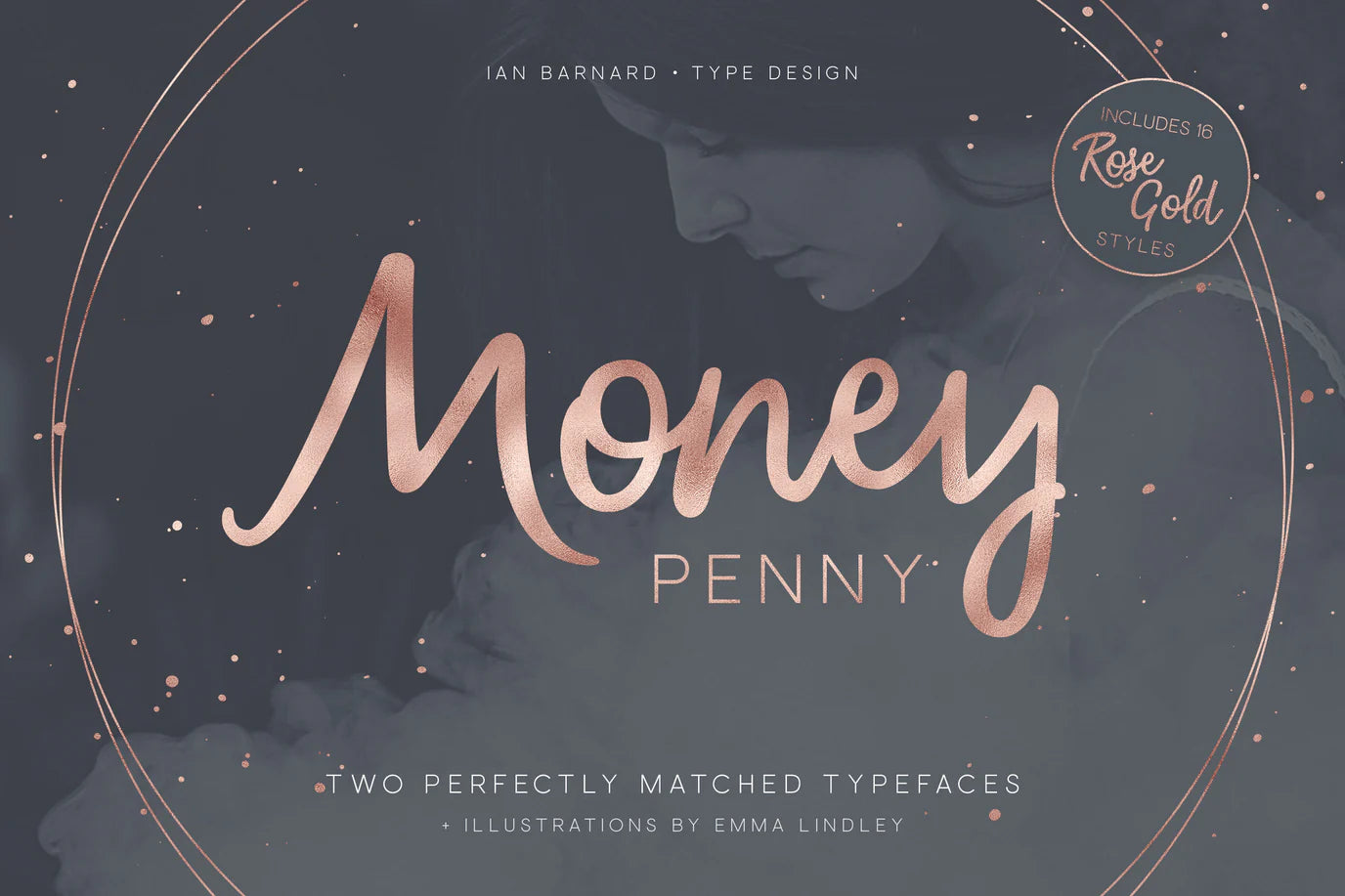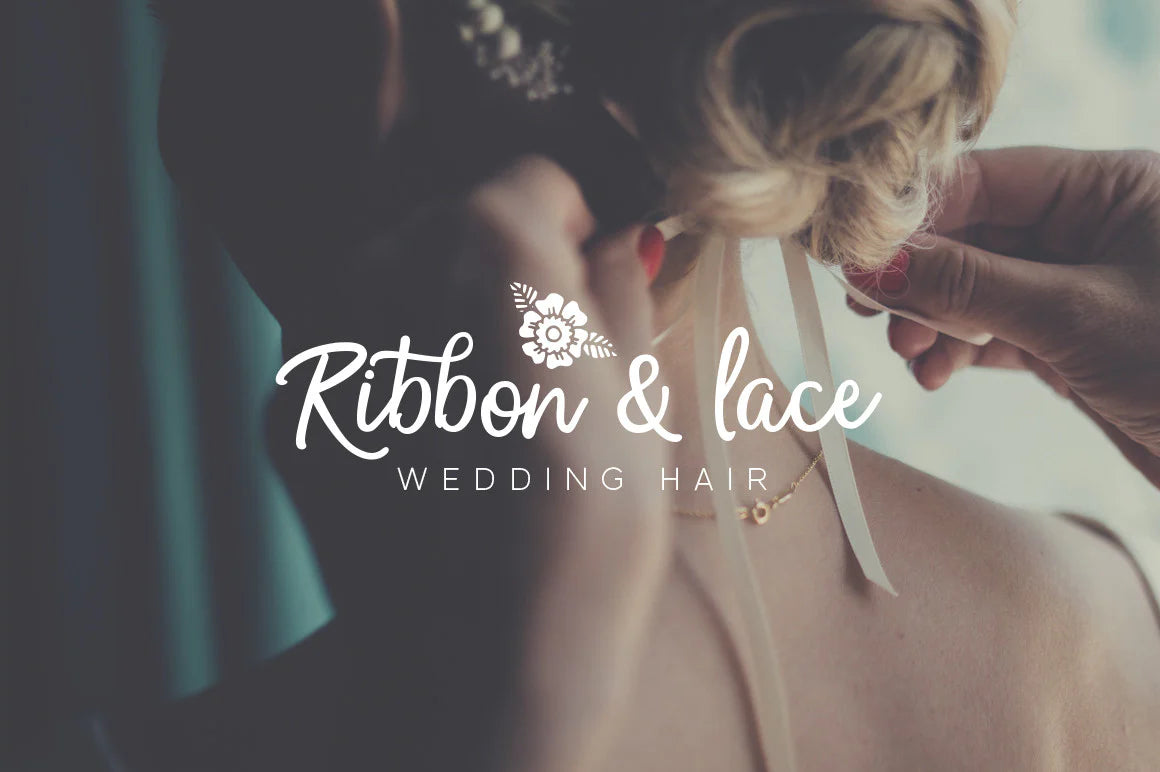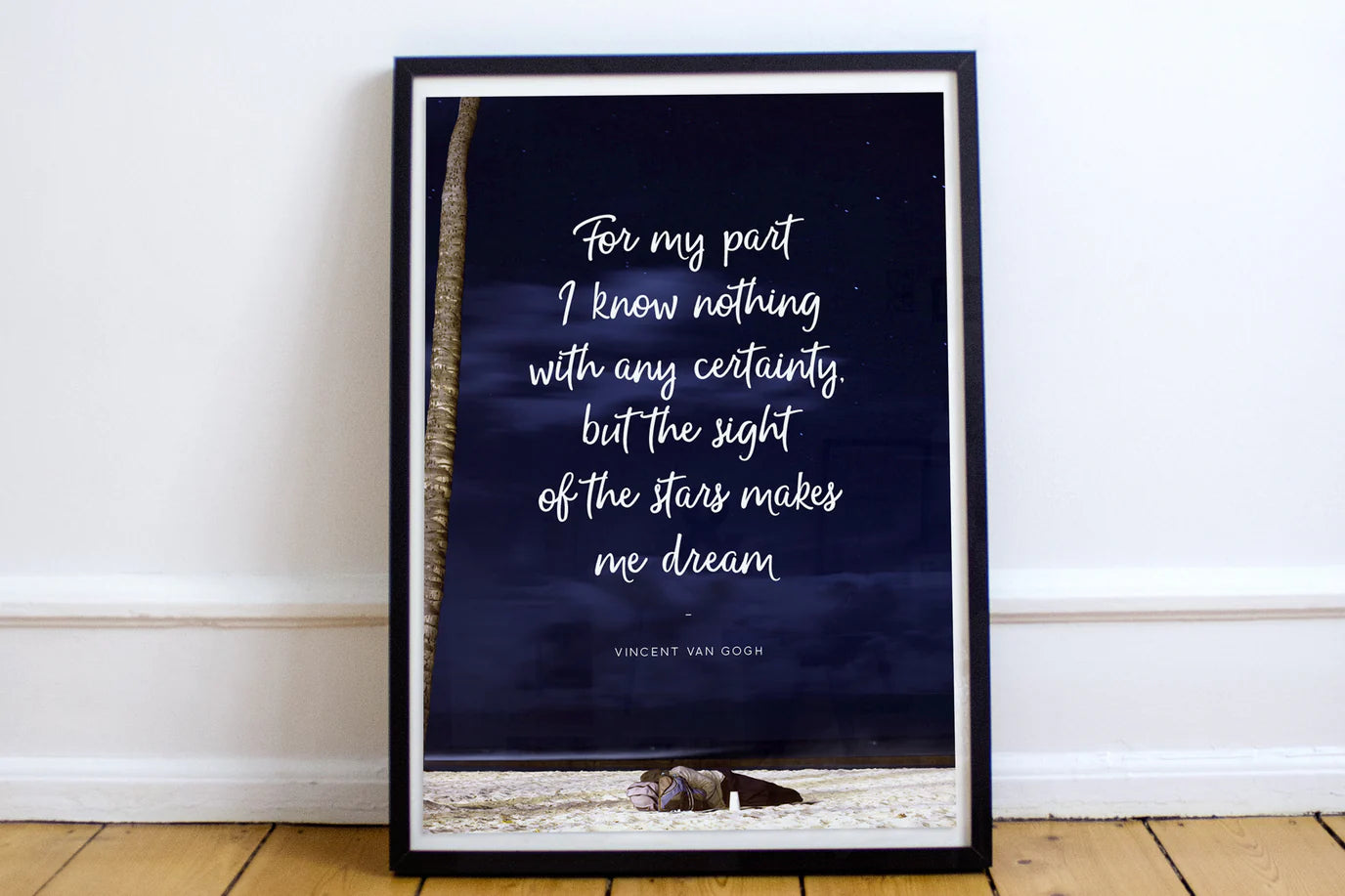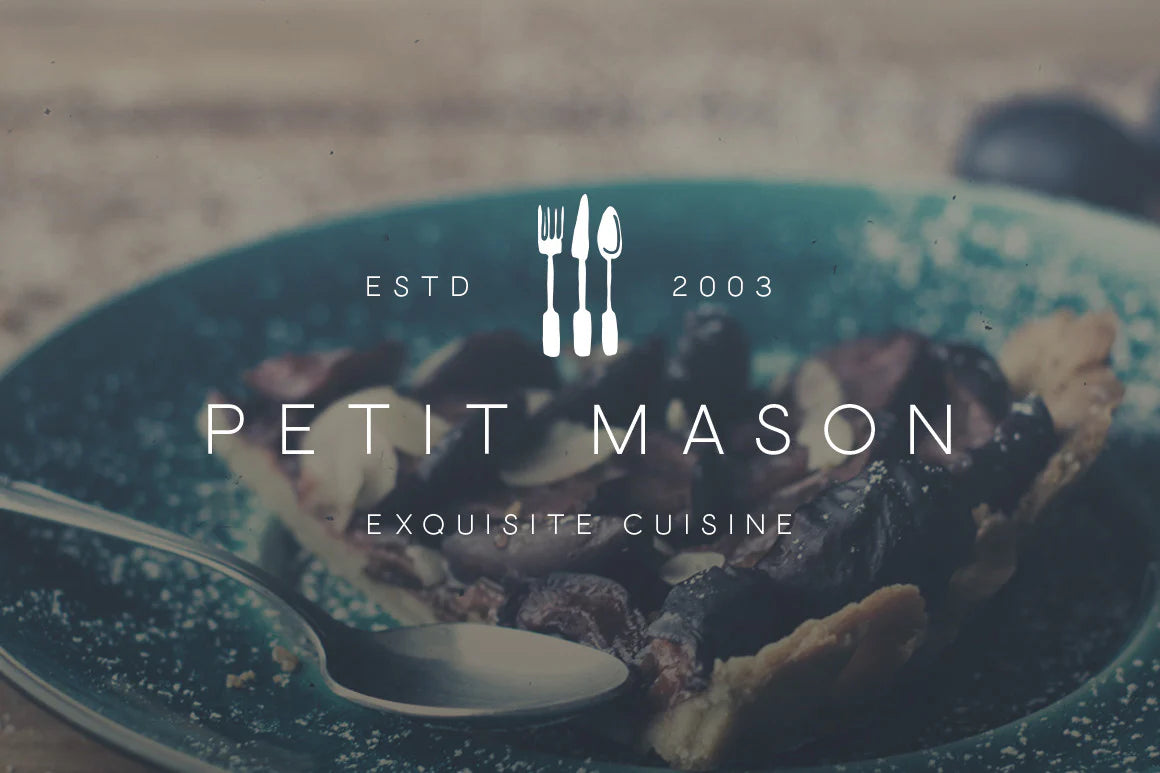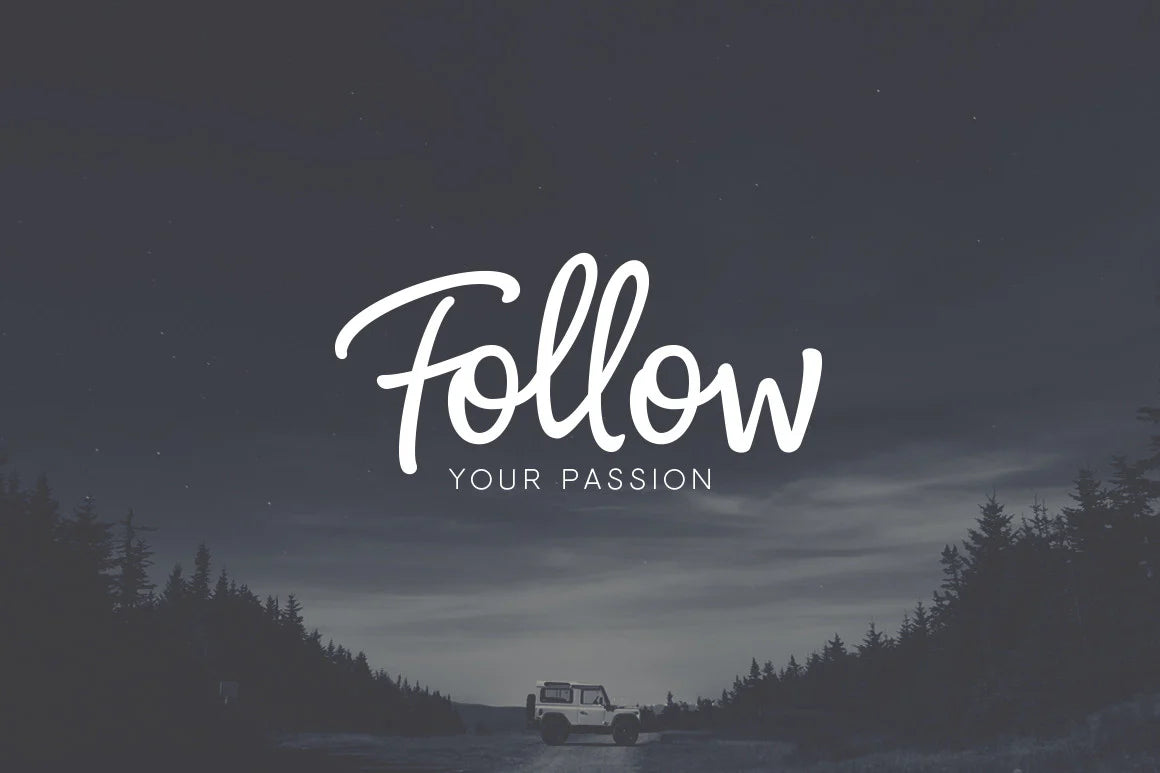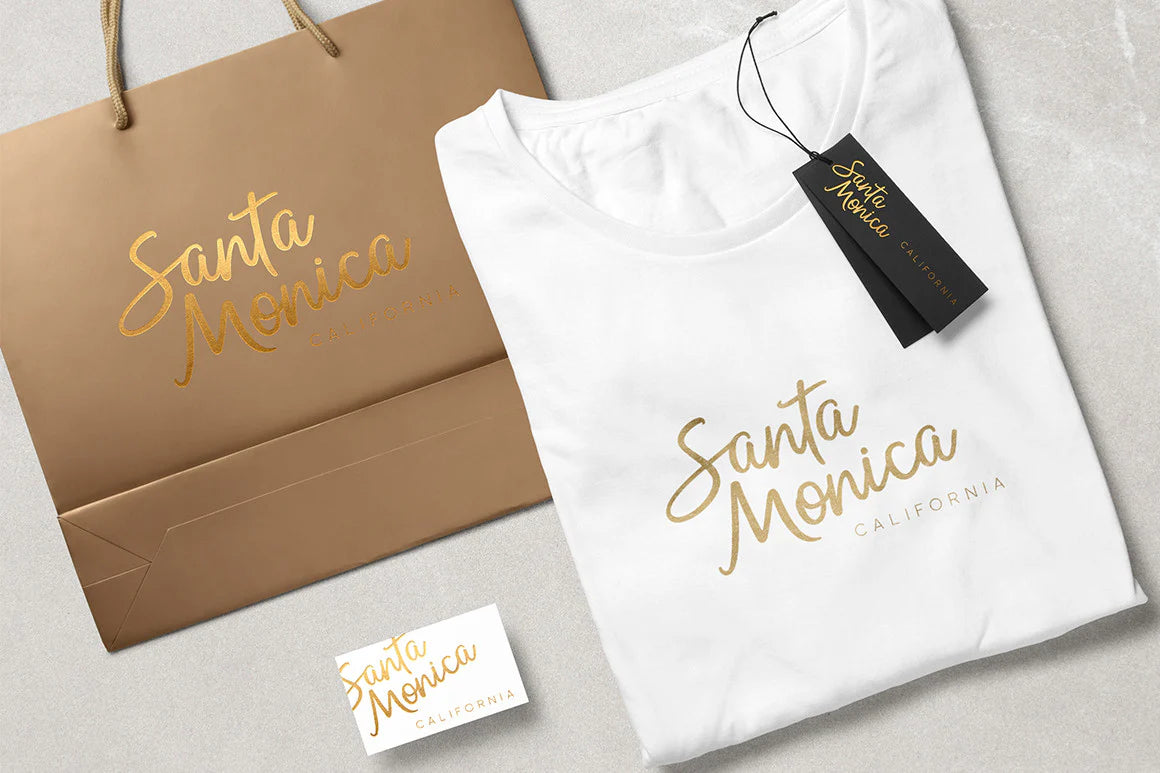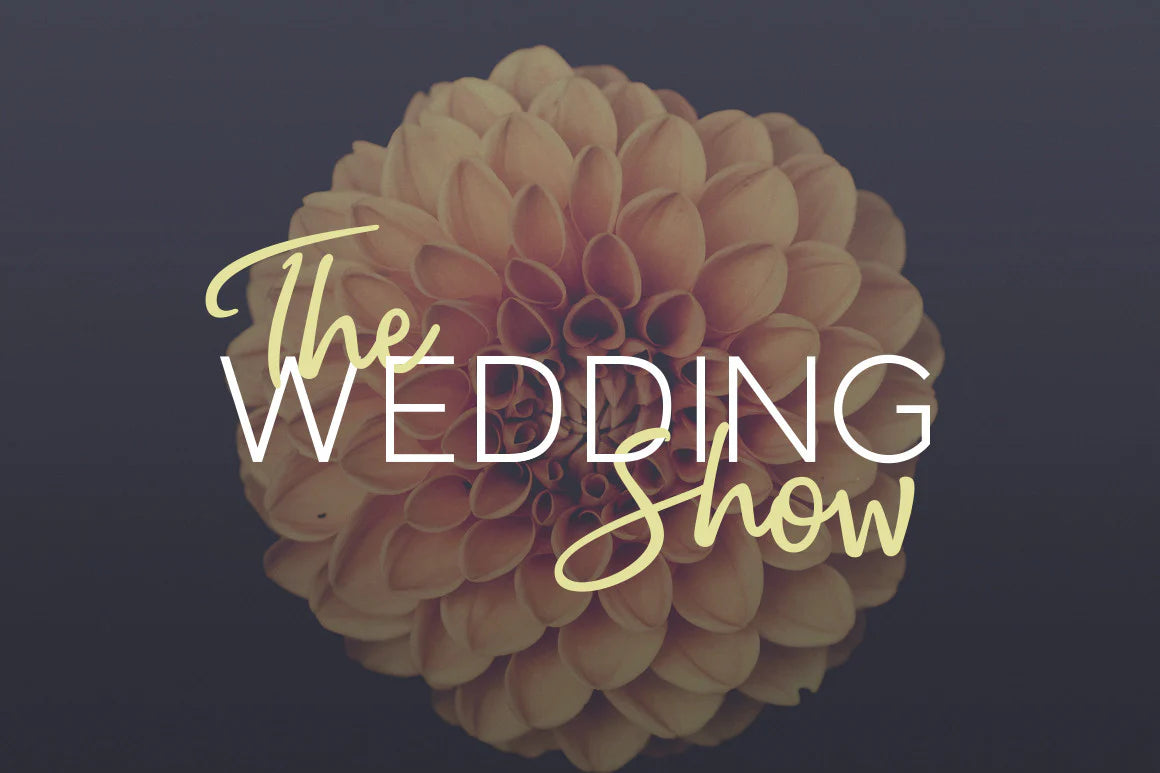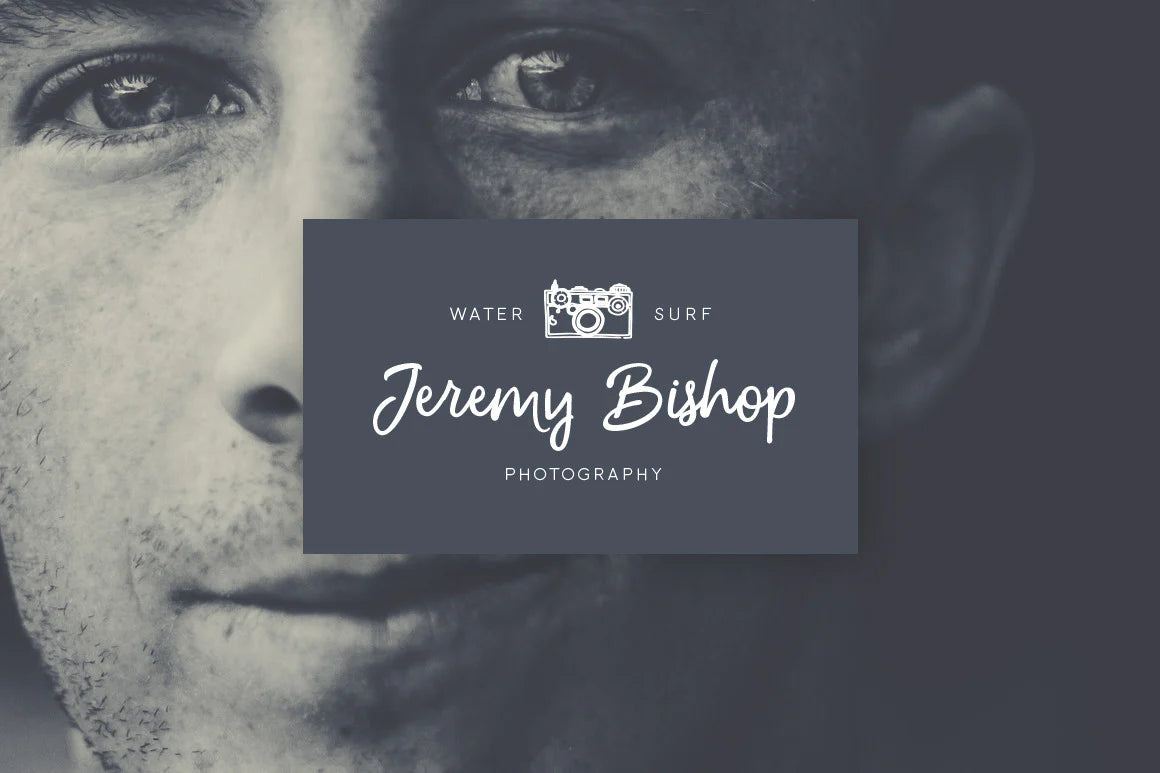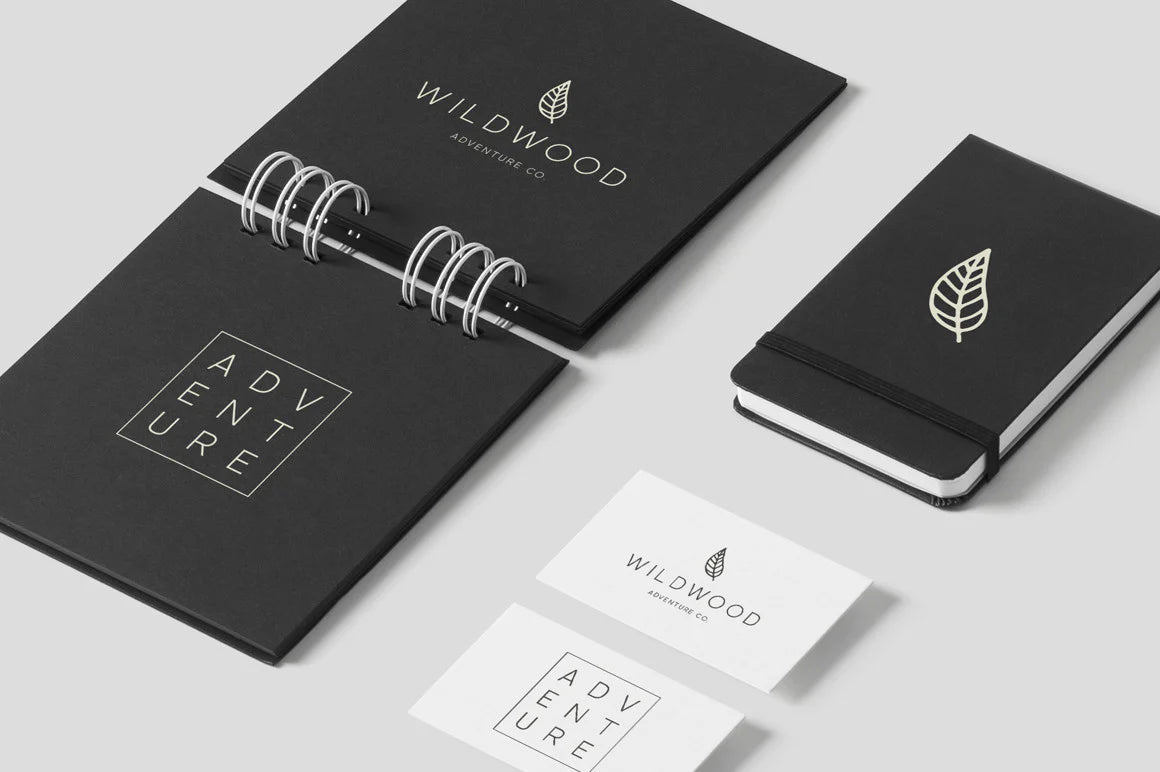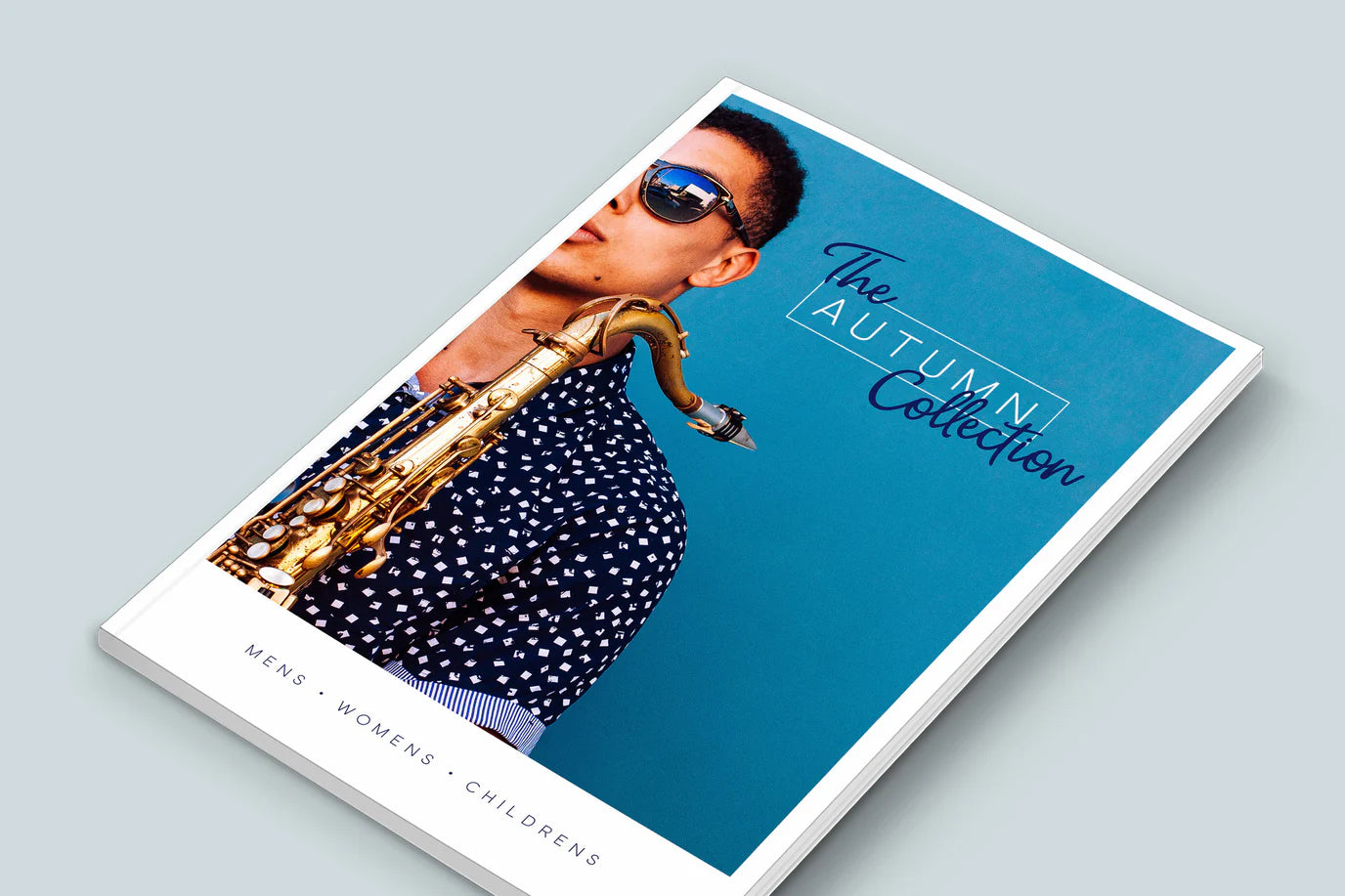
Money Penney
Introducing Money Penny. A perfectly paired font duet of free flowing brush script and a sophisticated sans-serif.
Take the stress out of finding fonts that match together with a set that already does and focus on what you want to do which is designing beauty work.
Money Penny Script - A hand written brush script, first drawn on paper and then remastered on the computer to give a smooth free flowing brush script, that looks perfect over the top of photos or as a classy logo.
Money Penny Sans - A super clean, simple and elegant sans-serif font that works producing stand alone sophisticated typographical pieces or in combination with the script font.